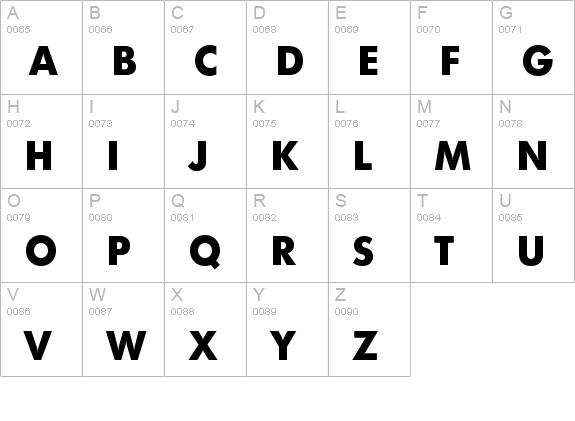
Limerick-ExtraBold is an extra-heavy, attention-grabbing variant in the Limerick typeface family \xE2\x80\x94 well suited to high-impact headlines, posters, and bold branding.
Limerick-ExtraBold is a stunning and bold font that exudes confidence and strength. With its thick and powerful letterforms, this font is perfect for making a bold statement in any design project. Whether you are creating eye-catching posters, striking headlines, or impactful branding materials, Limerick-ExtraBold will make sure your message gets noticed. And the best part? Limerick-ExtraBold is completely free to download at FontsMarket.com. Take advantage of this amazing opportunity to enhance your designs with this exceptional font without spending a dime. Don't miss out on the chance to add Limerick-ExtraBold to your font collection today!